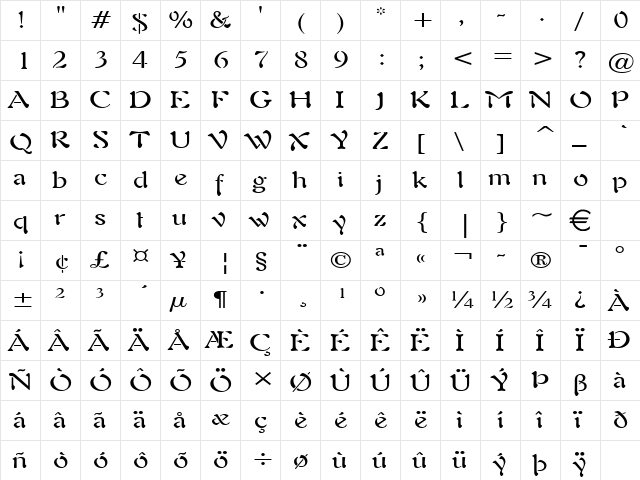
Freedom9Wide Normal
Design Context for Freedom9Wide Typeface
Freedom9Wide is a composed and adaptable typeface that performs quietly and consistently across a wide range of design contexts.
Pro Tip: Use Freedom9Wide in both headline and body roles to test its range before committing to a single application.